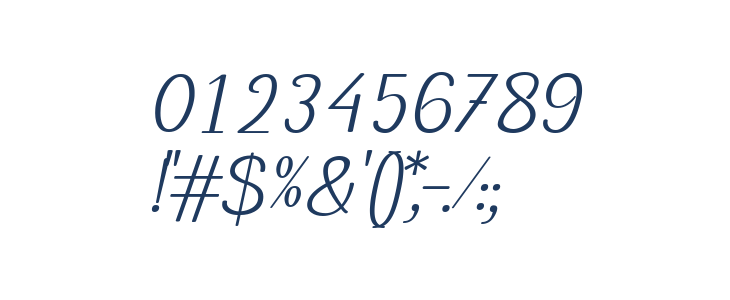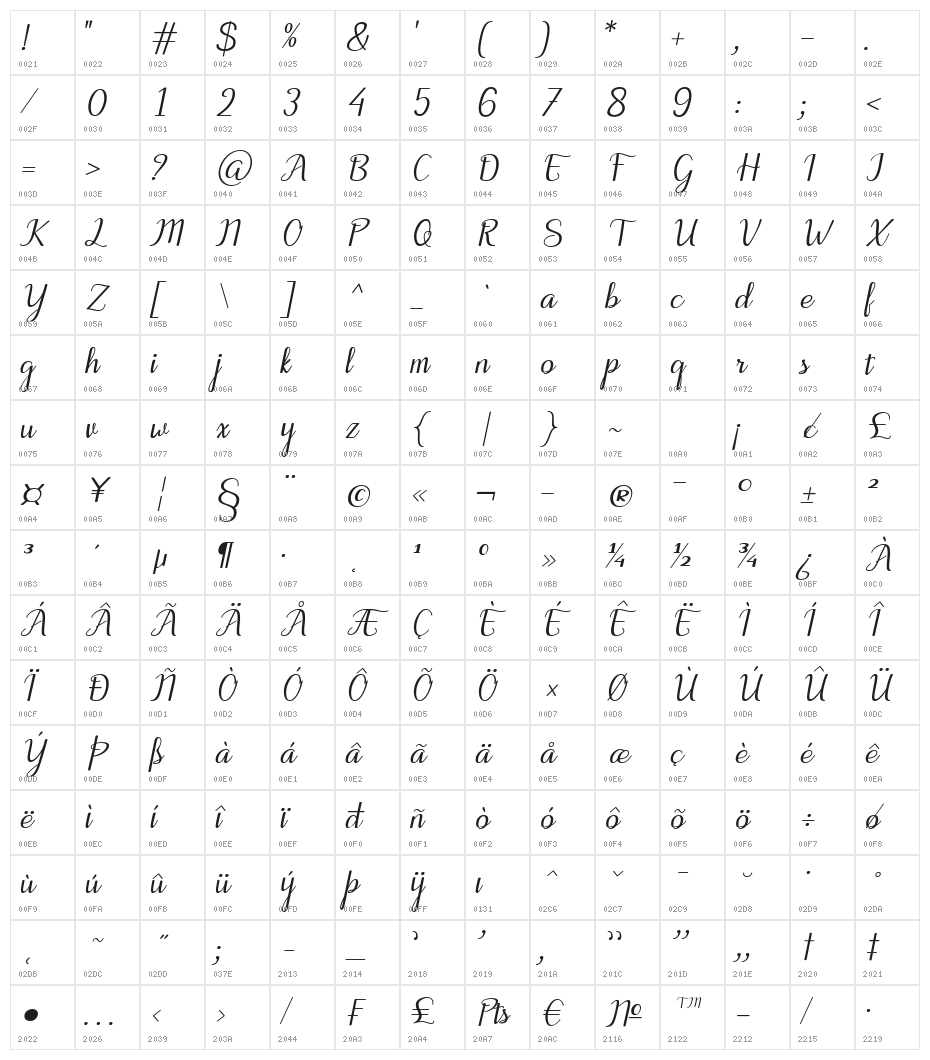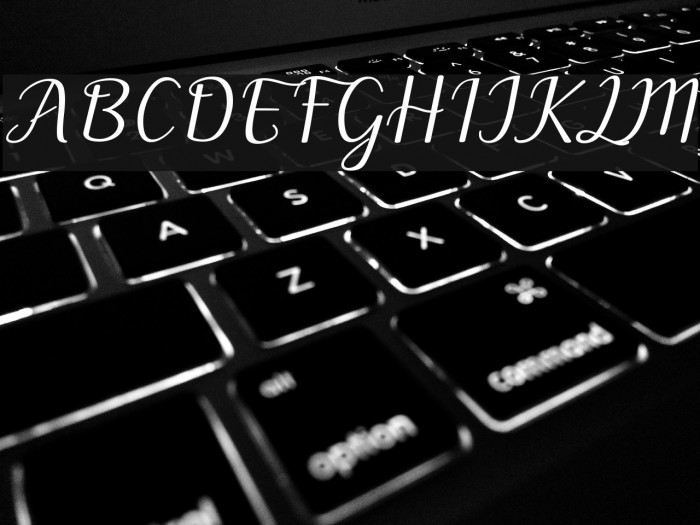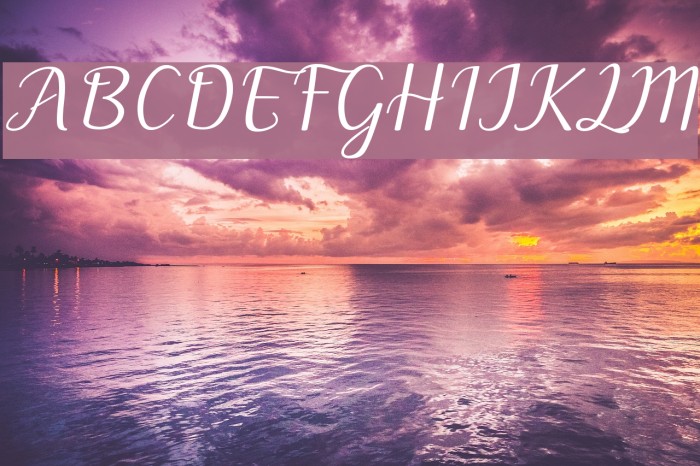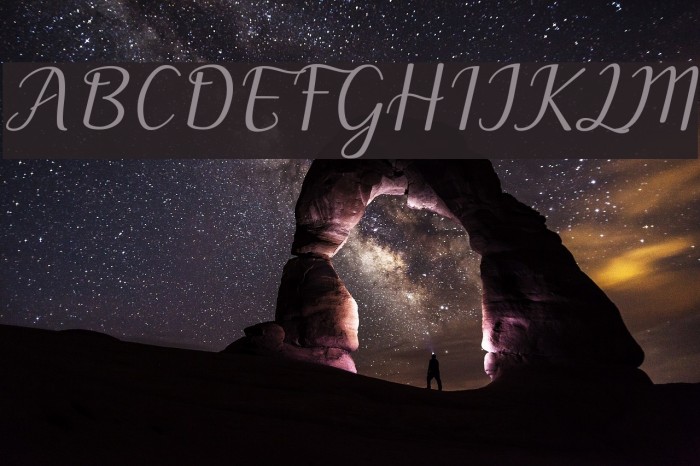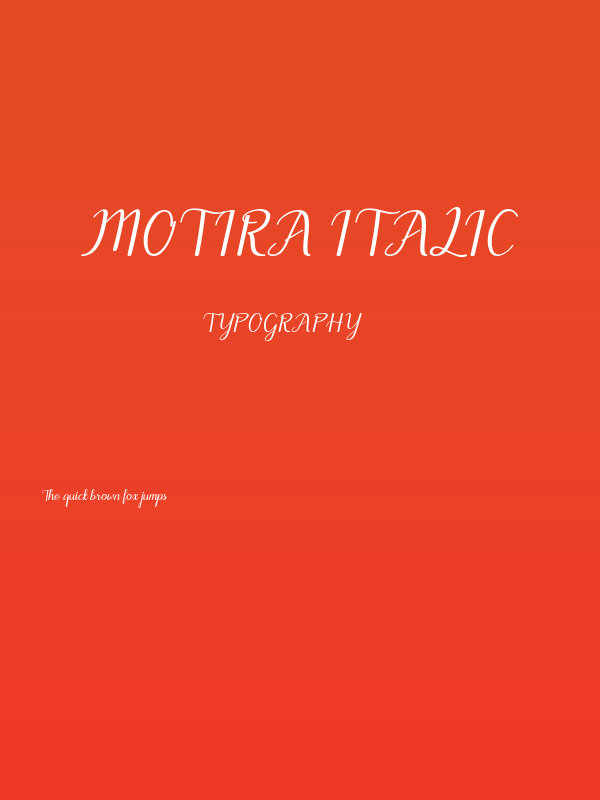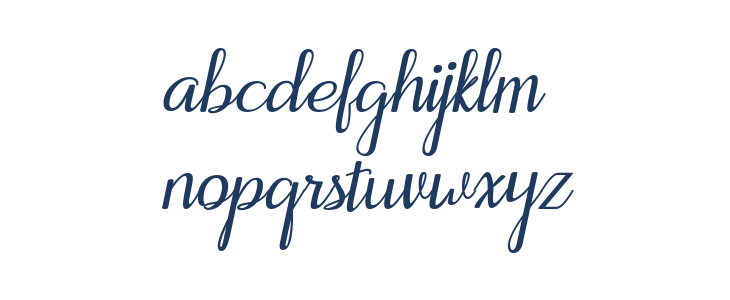
Motira Italic Font
Motira Italic Description
This font exudes elegance and fluidity, characterized by its cursive, flowing script style. The letters are connected in a smooth, continuous manner, giving it a handwritten appearance. The uppercase letters maintain a graceful and sophisticated look, while the lowercase letters are more compact and tightly knit. The numerals are clear and consistent with the overall script style. Special characters are seamlessly integrated, maintaining the font's cohesive aesthetic. This font is ideal for projects that require a touch of elegance and personal flair.
| Overall Style | Elegant, Handwritten |
| Proposed Projects | Ideal for wedding invitations, greeting cards, personal branding, and elegant logo designs. |